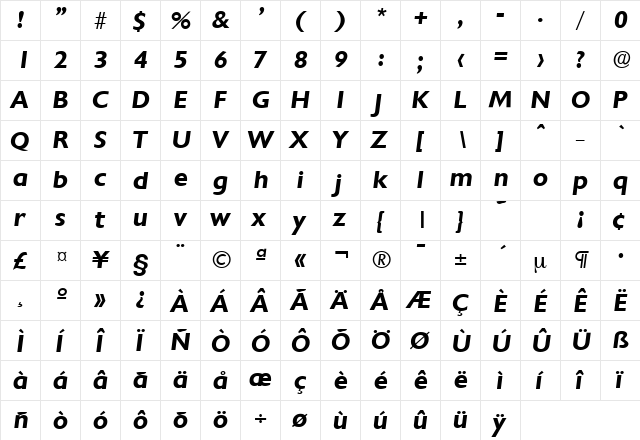
Chantilly-Serial BoldItalic Font Preview
Design Context for Chantilly-Serial Typeface
Chantilly-Serial takes a measured approach to typography — its balanced proportions and neutral character make it a reliable workhorse for both digital and print work. Its italic angle brings a sense of urgency and motion to the letterforms. Its bold stroke weight gives it real presence on the page.
Pro Tip: Try Chantilly-Serial for annotation and caption copy alongside an upright companion — the contrast in angle creates a dynamic but ordered typographic system.